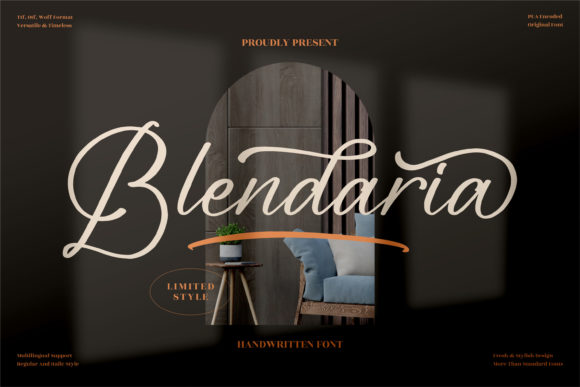
Blendaria Font
Blendaria is a romantic and sweet calligraphy typeface with characters that dance along the baseline. It will add a luxury spark to any design project that you wish to create! This font is PUA encoded which means you can access all of the amazing glyphs and ligatures with ease!